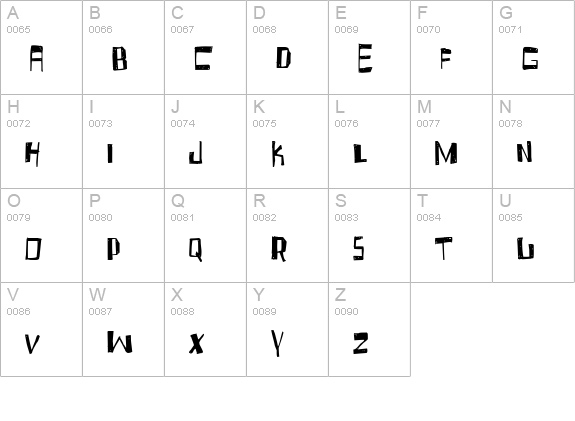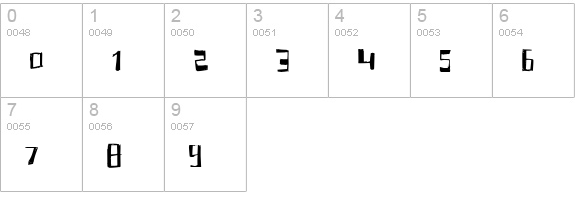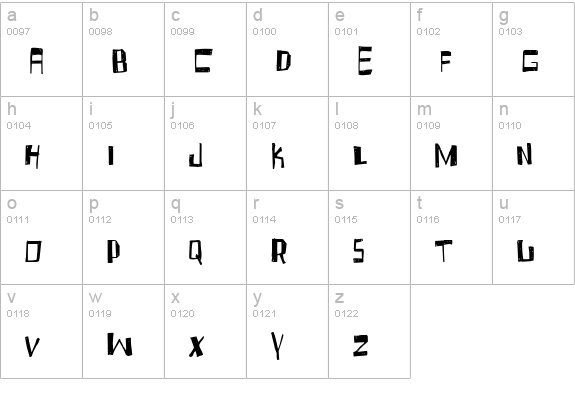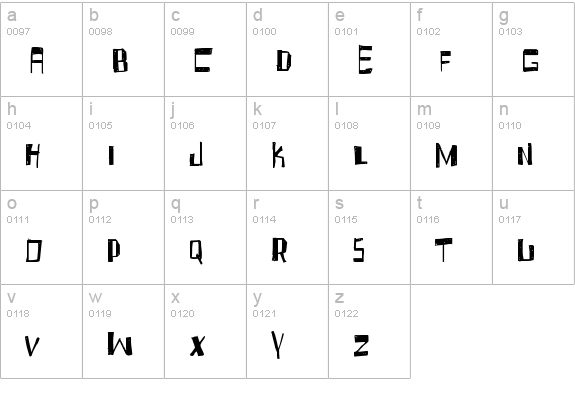
Fruity Drink Carbonated Font Details
Introducing Fruity Drink Carbonated font, a delightful and refreshing typeface that will add a pop of flavor to your designs! This bubbly font exudes a playful and vibrant energy, perfect for projects that need a touch of fun and whimsy. With its juicy and fruity-inspired design, Fruity Drink Carbonated font is sure to make a bold statement and captivate your audience. The best part? Fruity Drink Carbonated font is available for free download at FontsMarket.com, making it easily accessible for all your creative endeavors. Whether you're working on branding, packaging, invitations, or any other design project, this font will bring a refreshing twist to your work. So go ahead and add a splash of sweetness to your designs with Fruity Drink Carbonated font!